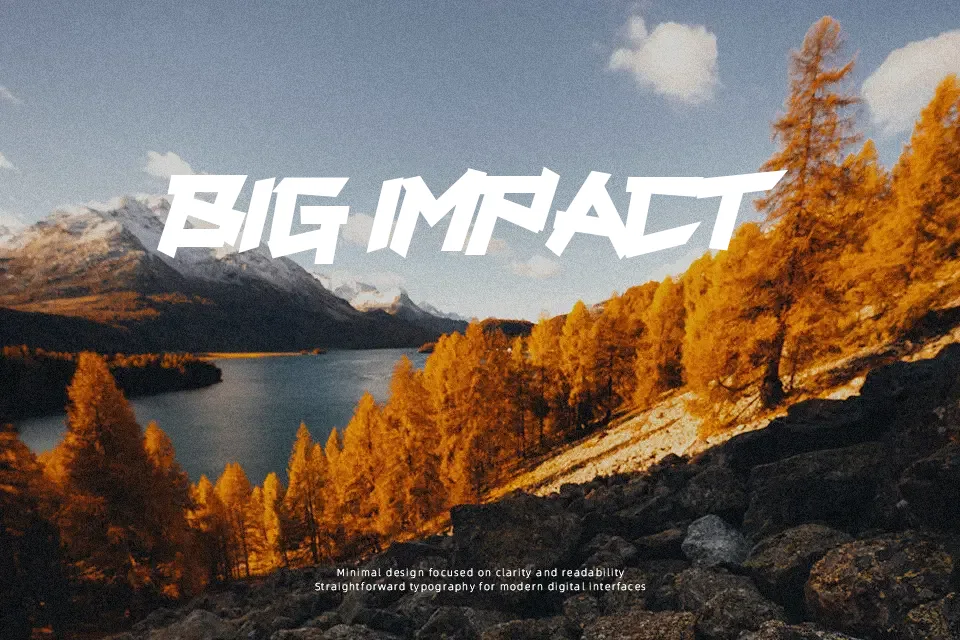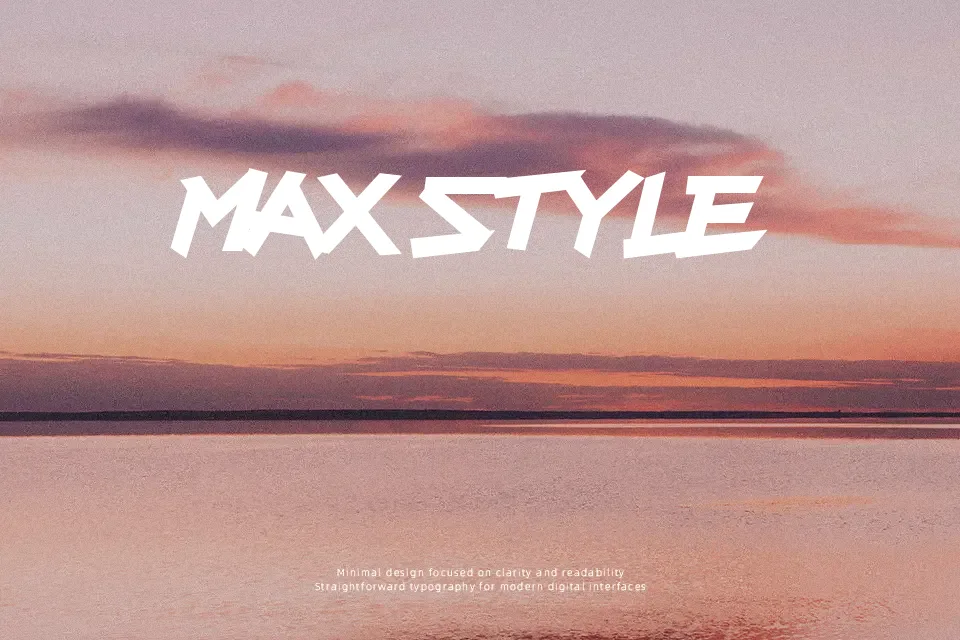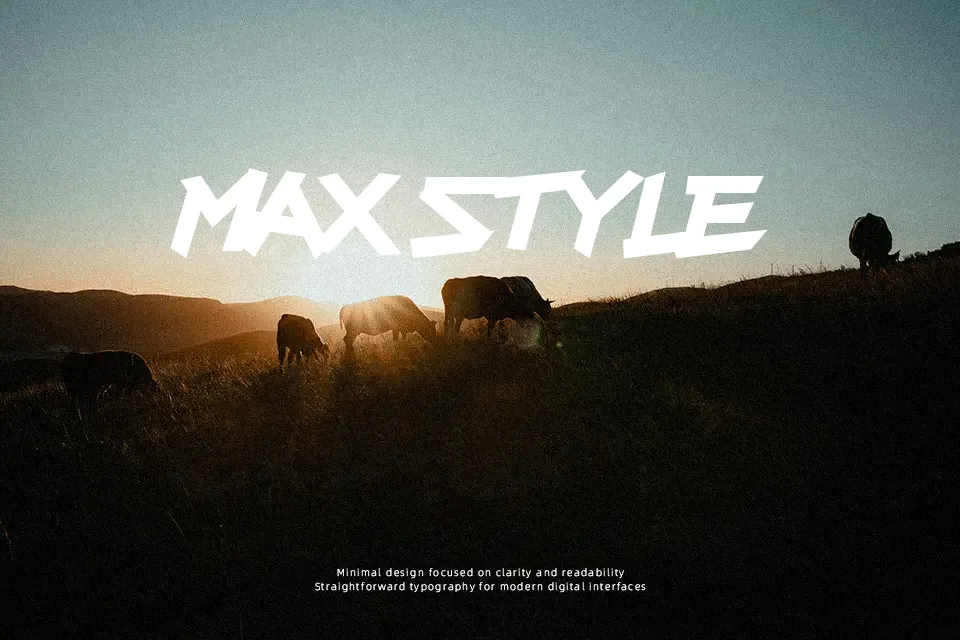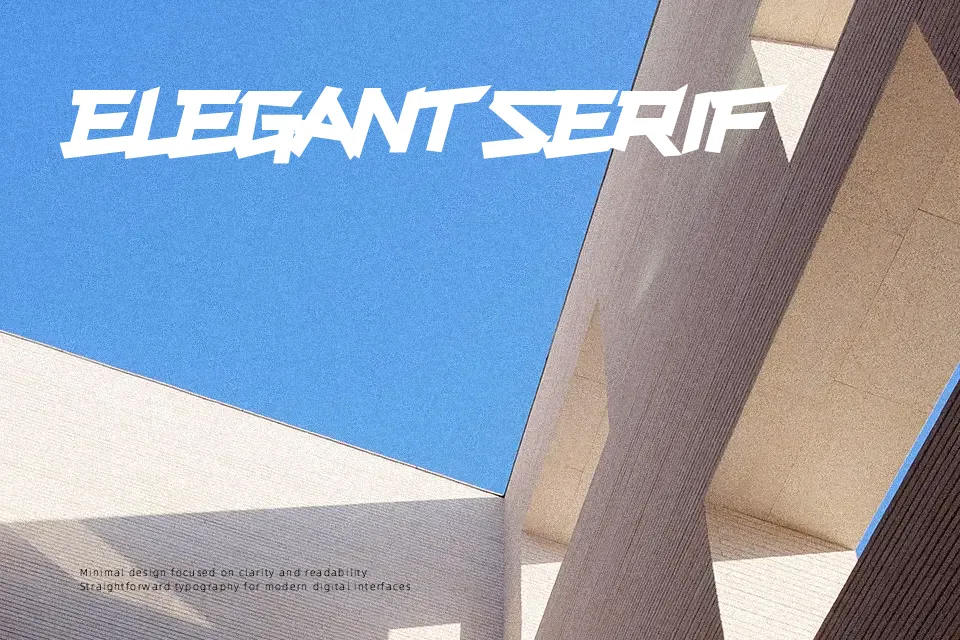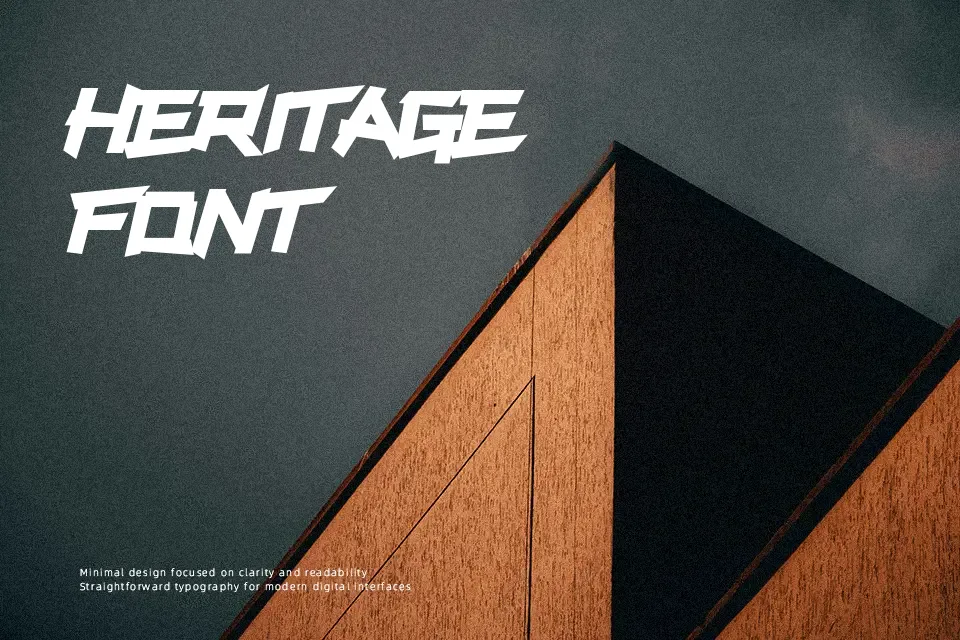
Supercarver Font
Supercarver Font uses thick, uneven shapes and sharply cut interior details to create a rugged decorative display texture. Its uppercase forms appear wide and weighty, while the irregular stroke edges make each letter feel visually dense. Spacing works better in short, separated words than in compact lines, where the detailed silhouettes can begin to merge. The typeface is most effective for large titles, dark-themed graphics, and expressive logo treatments. It has strong poster-scale presence, but the carved details reduce legibility in small captions and continuous text.
Perfect for film, gaming, and headline, with a creative and decorative style.